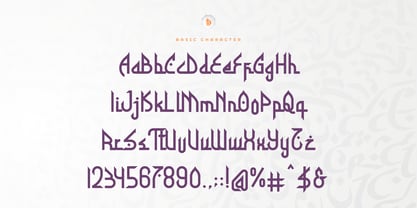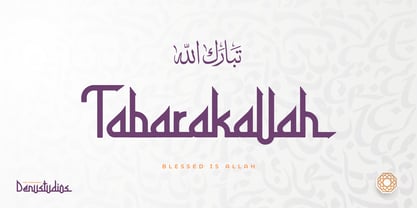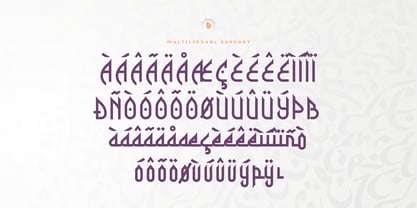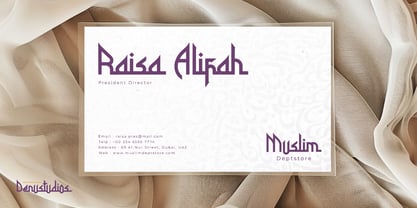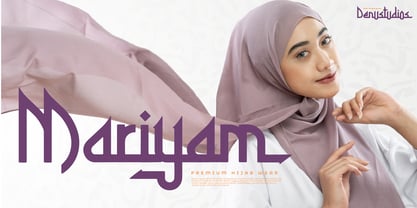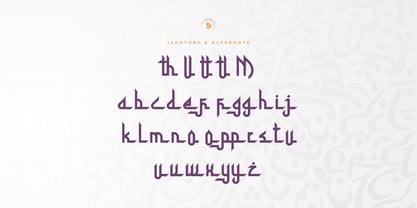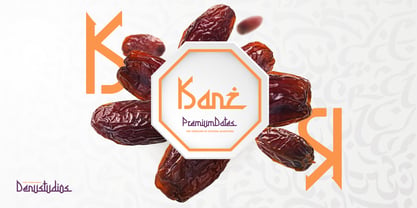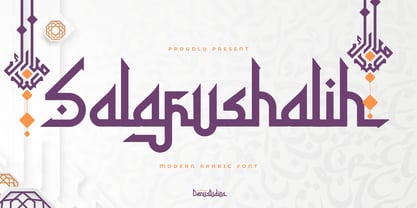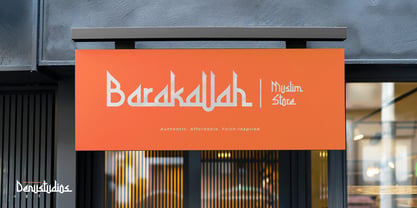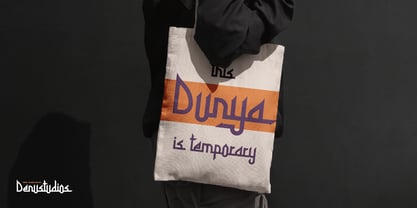
Salafushalih
The Salafushalih Font Family was designed by Dede Nugraha and published by Denustudio. Salafushalih contains 1 styles. More about this family
Salafushalih | Modern Arabic Font, from Denustudios, suitable for any projects such as: logos, branding projects, homeware designs, product packaging, mugs, quotes, posters, shopping bags, t-shirts, book covers, name card, invitation cards, greeting cards, label, photography, watermark, special events, and all your other lovely projects that need Modern Arabic Font a taste.
• Regular and Italic
• Standard glyphs
• Alternate and Ligature
• Fonts include multilingual support